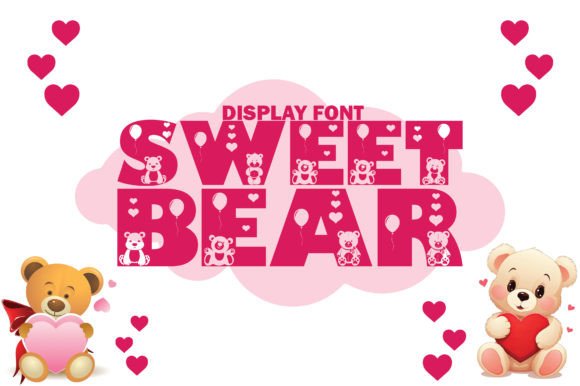
Sweet Bear Font: The Ultimate Decorative Font for Your Design Projects
Are you looking for a font that can add a touch of drama and elegance to your design projects? Look no further than Sweet Bear Font! This decorative font is perfect for crafty ideas, and with its unique and stylish design, it’s sure to make your projects stand out. In this article, we’ll take a closer look at Sweet Bear Font and explore its features, benefits, and uses.
What is Sweet Bear Font?
Sweet Bear Font is a dramatic decorative font that is designed to add a touch of sophistication and elegance to your design projects. Its unique and stylish design makes it perfect for a wide range of applications, from crafting and DIY projects to commercial designs and branding.
The font features a distinctive bear-inspired design, with bold lines and a playful touch. Its dramatic and eye-catching design makes it perfect for headlines, titles, and other design elements that need to make a statement.
Features of Sweet Bear Font
Sweet Bear Font has several features that make it an ideal choice for designers and crafters. Some of its key features include:
- Dramatic and decorative design: Sweet Bear Font features a bold and eye-catching design that’s perfect for making a statement.
- Unique bear-inspired design: The font’s bear-inspired design gives it a playful and fun touch that’s sure to stand out.
- High-quality and crisp design: The font is designed with high-quality and crisp lines, making it perfect for printing and digital applications.
- Easily readable: Despite its decorative design, Sweet Bear Font is easily readable, making it perfect for use in a wide range of applications.
Benefits of Using Sweet Bear Font
There are several benefits to using Sweet Bear Font in your design projects. Some of the key benefits include:
- Adds a touch of elegance and sophistication: Sweet Bear Font’s dramatic and decorative design adds a touch of elegance and sophistication to your design projects.
- Perfect for crafty and DIY projects: The font’s playful and fun design makes it perfect for crafty and DIY projects, such as handmade cards, invitations, and other paper crafts.
- Great for commercial designs: Sweet Bear Font is also perfect for commercial designs, such as branding, packaging, and advertising.
- Easily customizable: The font is easily customizable, allowing you to adjust the size, color, and style to suit your design needs.
Uses of Sweet Bear Font
Sweet Bear Font is a versatile font that can be used in a wide range of applications. Some of the most popular uses of the font include:
- Crafting and DIY projects: Sweet Bear Font is perfect for handmade cards, invitations, and other paper crafts.
- Commercial designs: The font is great for commercial designs, such as branding, packaging, and advertising.
- Digital designs: Sweet Bear Font can be used in digital designs, such as social media graphics, blog posts, and website headers.
- Print designs: The font is perfect for print designs, such as brochures, flyers, and posters.
Tips and Tricks for Using Sweet Bear Font
Here are some tips and tricks for using Sweet Bear Font:
- Use it sparingly: Use Sweet Bear Font sparingly to make a statement and add emphasis to your design.
- Experiment with colors: Experiment with different colors to find the perfect match for your design.
- Pair it with other fonts: Pair Sweet Bear Font with other fonts to create a unique and stylish design.
- Use it in different sizes: Use Sweet Bear Font in different sizes to create visual interest and hierarchy in your design.
Sweet Bear Font is a dramatic decorative font that’s perfect for adding a touch of elegance and sophistication to your design projects. Its unique bear-inspired design, high-quality and crisp lines, and easily readable design make it perfect for a wide range of applications. Whether you’re a designer, crafter, or DIY enthusiast, Sweet Bear Font is a great addition to your font library.
- What is Sweet Bear Font?: Sweet Bear Font is a dramatic decorative font with a unique bear-inspired design.
- Is Sweet Bear Font easy to read?: Yes, Sweet Bear Font is easily readable, making it perfect for use in a wide range of applications.